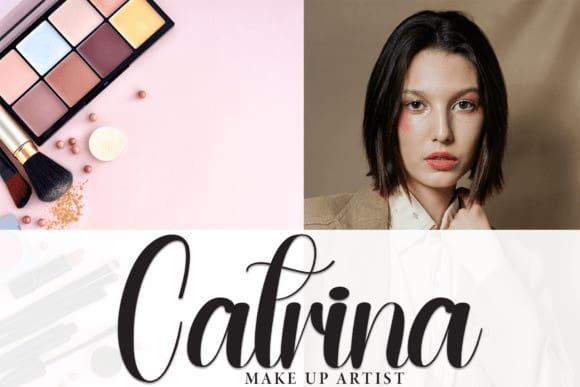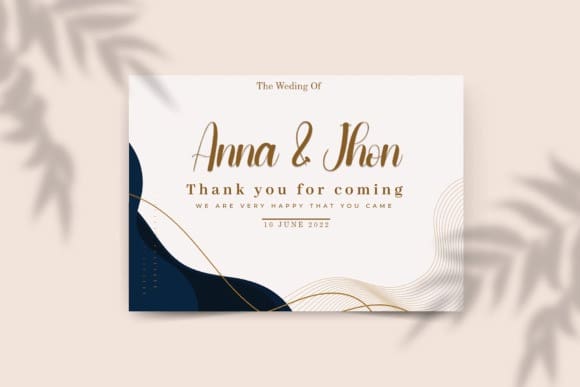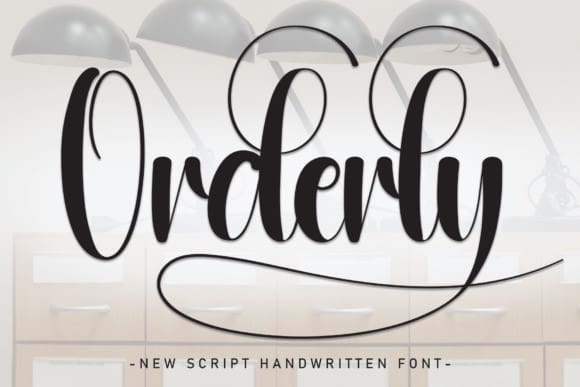
Orderly Script Font
Orderly Script Font is a sweet and friendly handwritten font. Fresh and casual, this font is ideal for writing wedding invitations, cards, or any other design that might need a lovely touch!